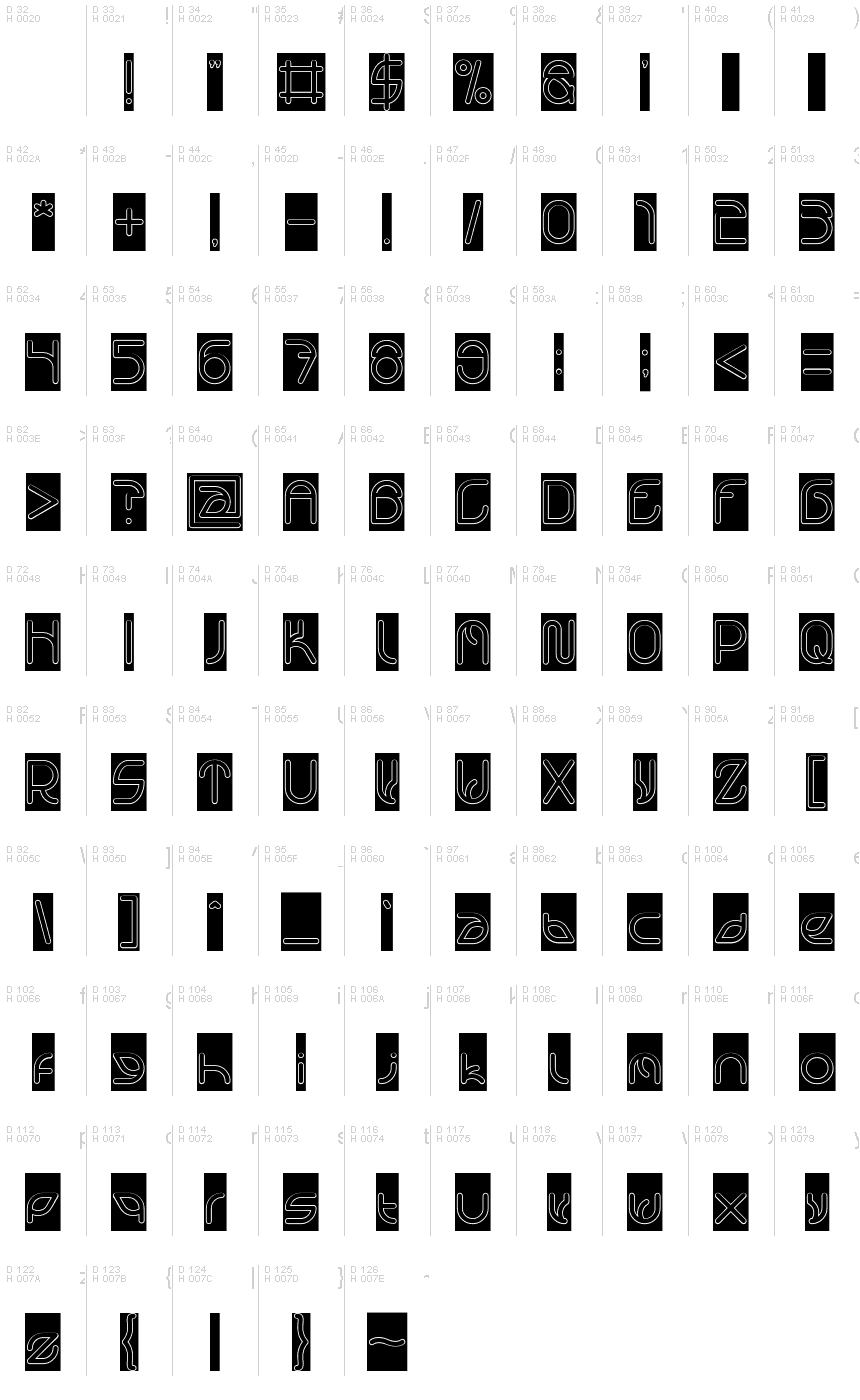
VICTORY-Hollow-Inverse
VICTORY Hollow Inverse is a futuristic display font designed by Weknow. Its semi-light weight and negative style make it perfect for projects that require a modern and edgy touch. The hollow inverse design adds depth and dimension, making it ideal for use in logos, branding materials, and advertising campaigns. Use this font to create attention-grabbing headlines or eye-catching graphics that demand attention. With its versatile style, VICTORY Hollow Inverse can be used in a variety of projects, from tech startups to fashion brands. Let your creativity run wild with this bold and unique typeface!